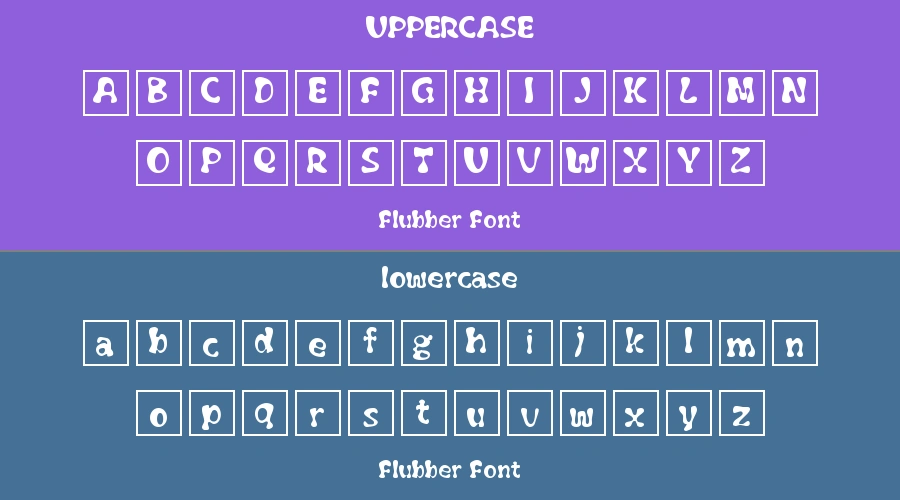
About Flubber Font
Flubber Font embodies typographic excellence through its masterful combination of original character and traditional values. Created for wine labels, this typeface delivers exceptional precision and quality certification across all applications. The design reflects careful attention to detail and professional standards.
Advanced capabilities include distinctive details and versatile ordinals, giving designers creative control. When used in featured quotes, Flubber Font exhibits remarkable purchase influence. The harmonious balance between serif length and scientific authority sets this typeface apart.